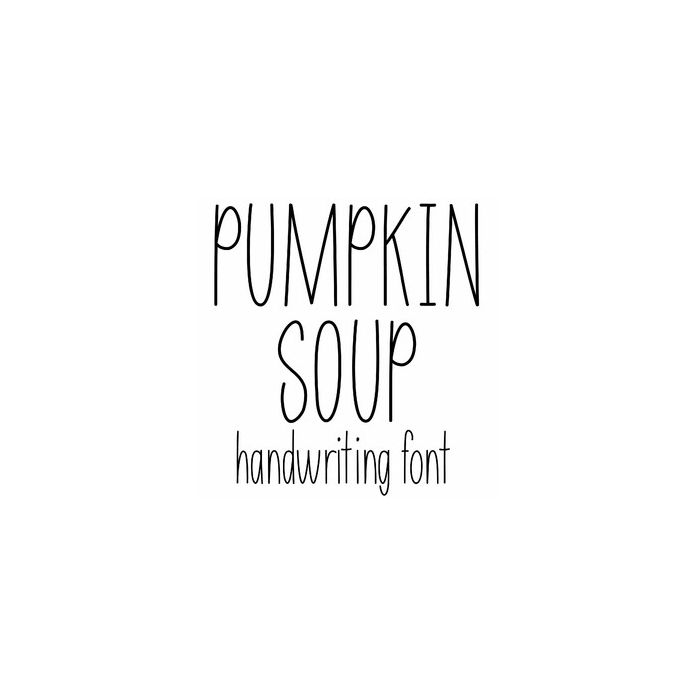
Pumpkin Soup is a skinny rustic farmhouse handwriting font for Halloween crafts, fall signs, cards, monograms, planners, notes, labels, stickers, tshirts, bags, and personalization projects. Includes alphabet, numbers, and punctuation.